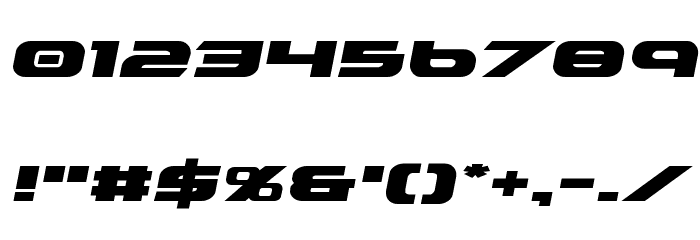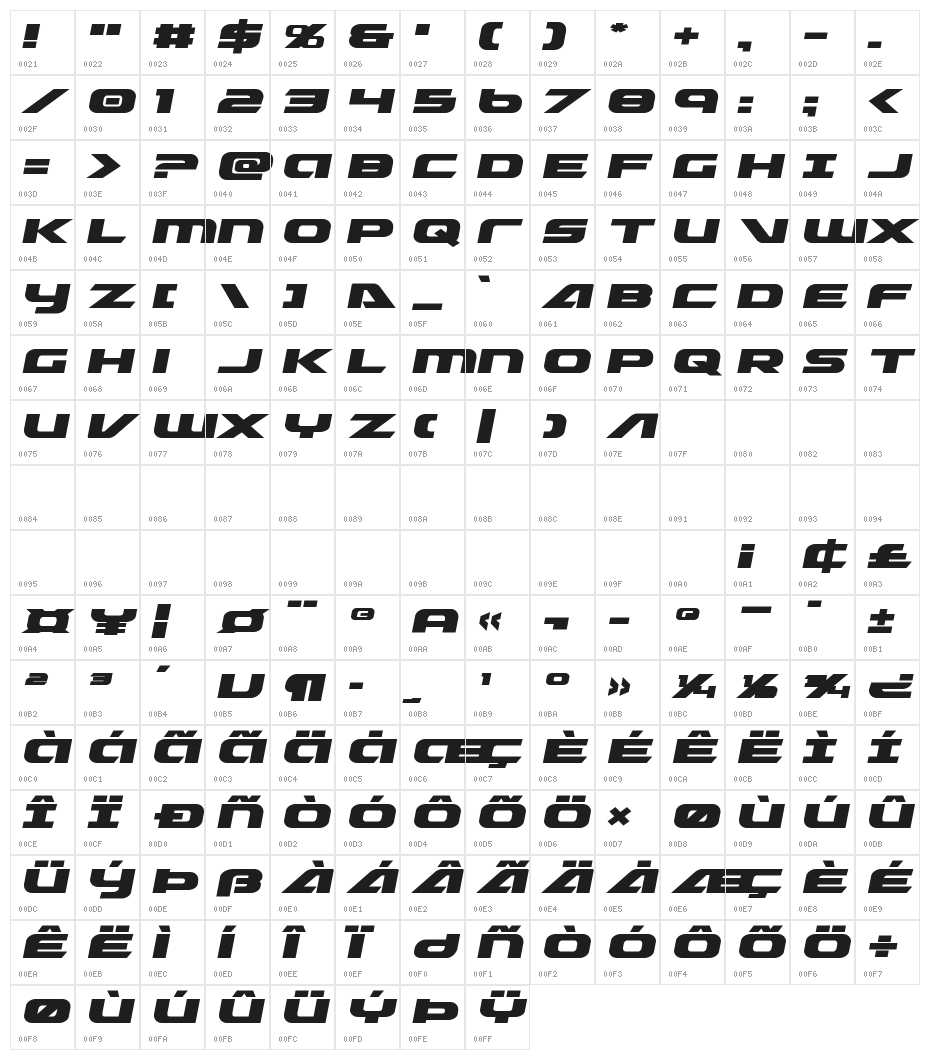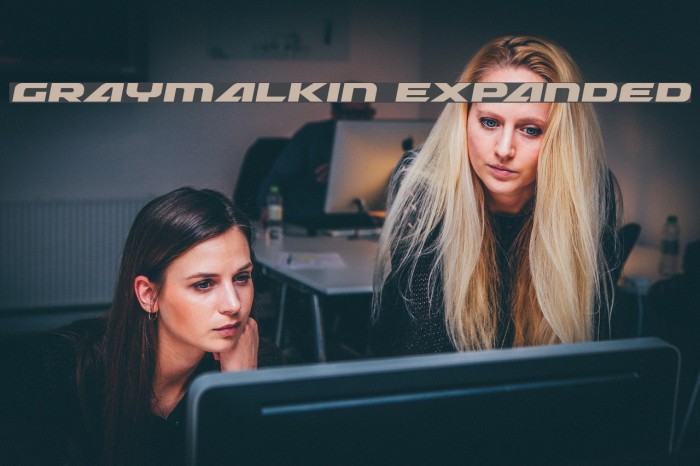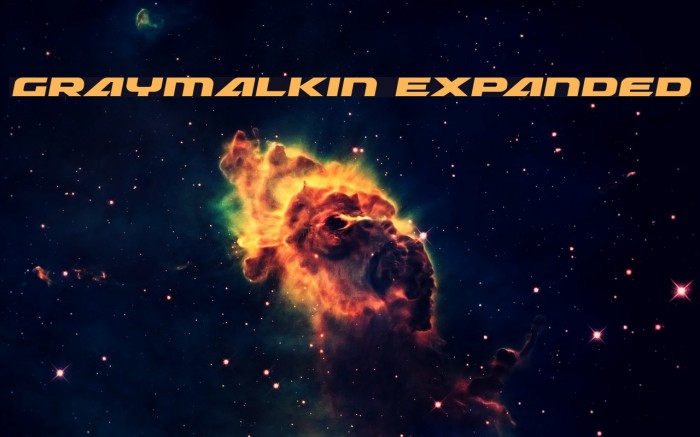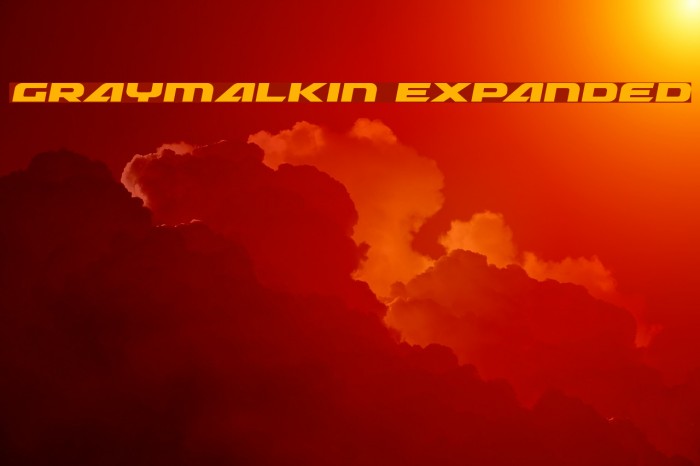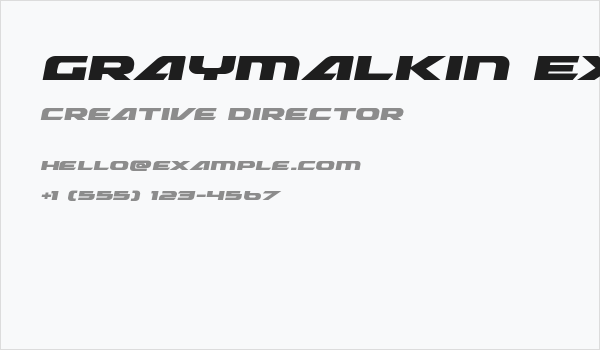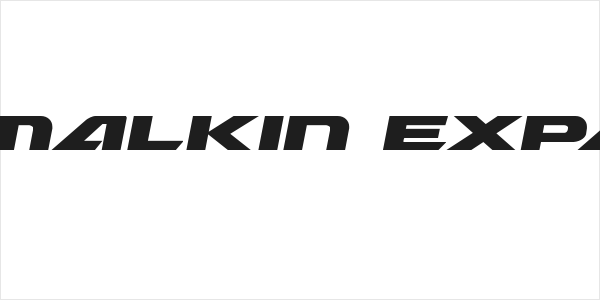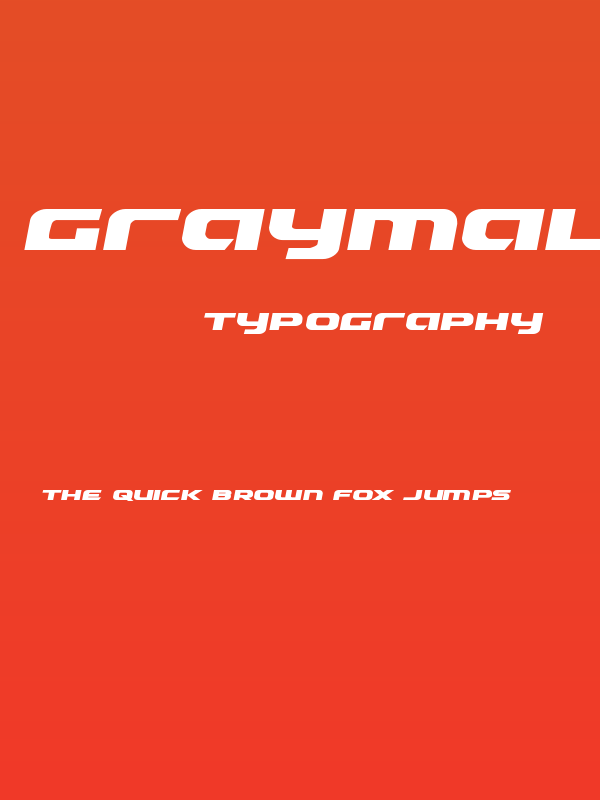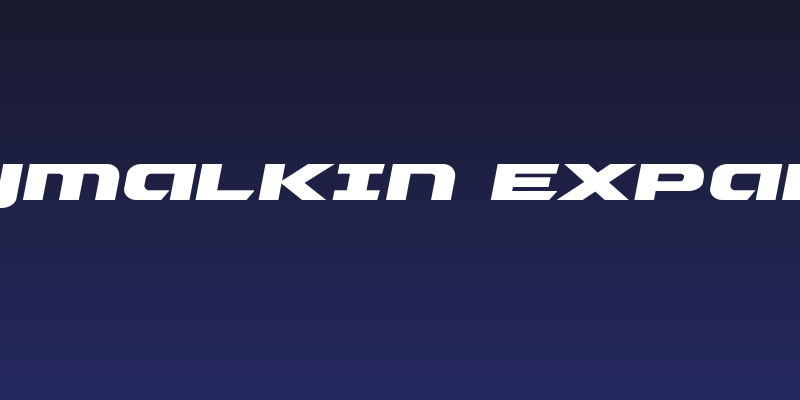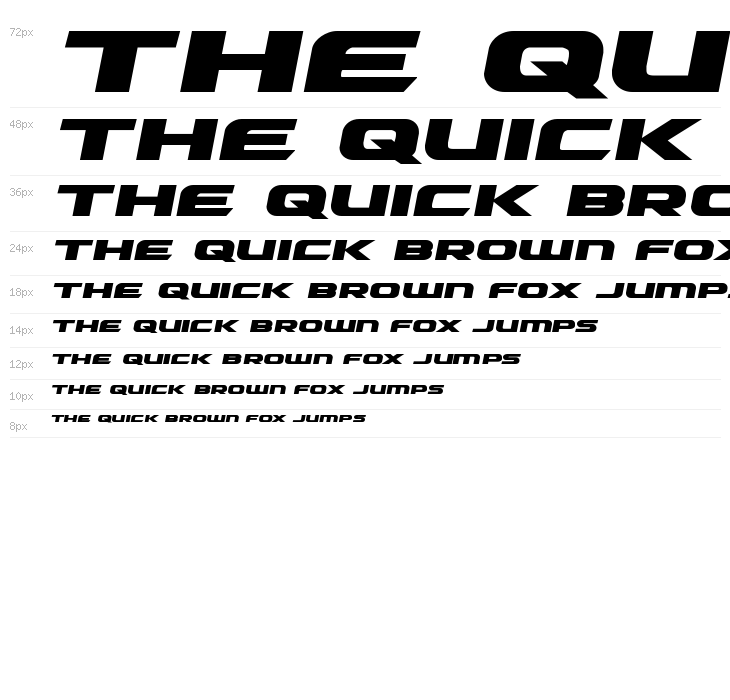
Graymalkin Expanded Font
Graymalkin Expanded Description
This font features a bold and futuristic design with expanded letterforms that convey a sense of speed and modernity. The characters are slightly slanted, adding a dynamic and forward-moving appearance. The strokes are thick and consistent, providing a strong visual impact. The overall style is sleek and contemporary, making it suitable for projects that require a cutting-edge look. The font includes a full set of uppercase and lowercase letters, numbers, and a variety of special characters, ensuring versatility in design applications.
| Use Case | Logos, Headlines |
| Proposed Projects | Ideal for technology branding, sports team logos, video game titles, and sci-fi themed designs. |